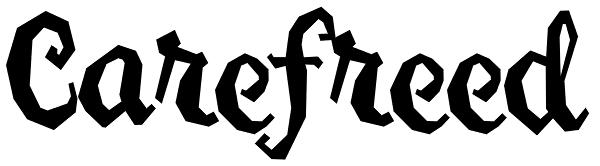
Carefreed
Carefreed is a rough script. The font includes upper and lowercase alphabets, numbers, punctuation, accented characters, symbols, and miscellaneous characters.
Carefreed Font